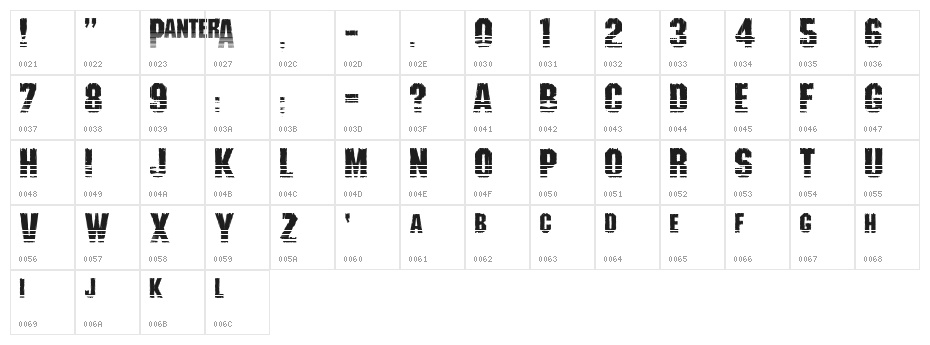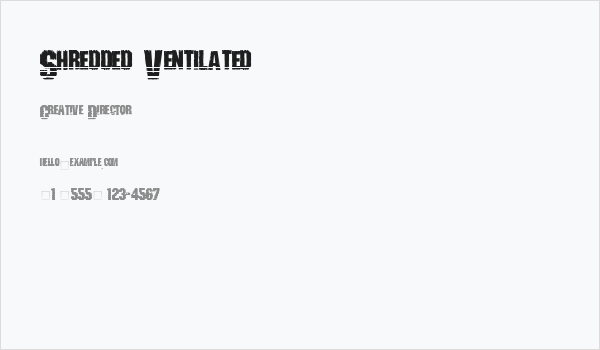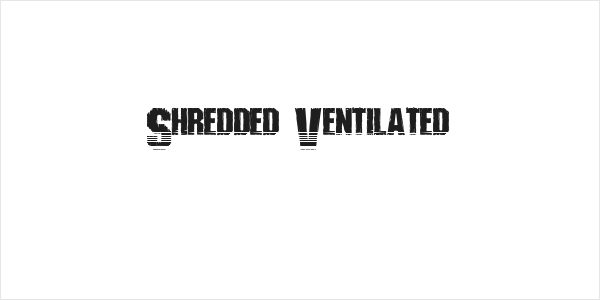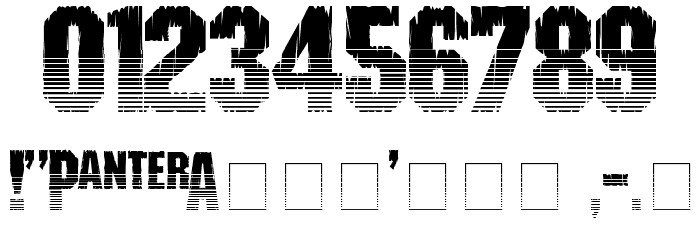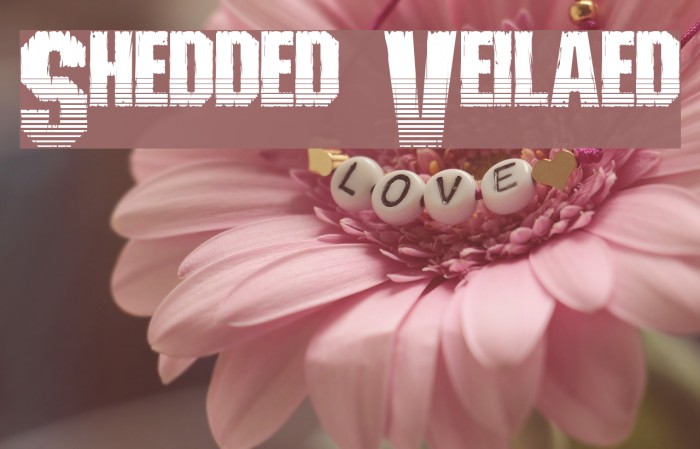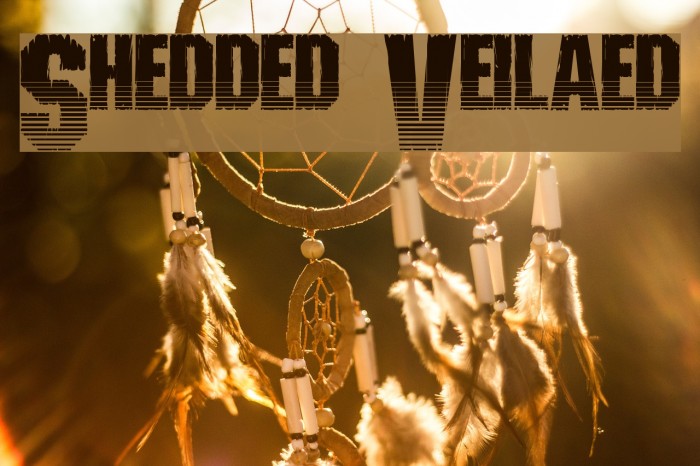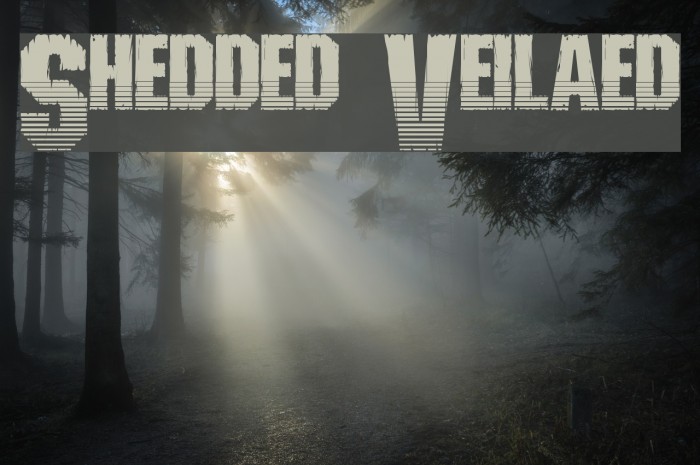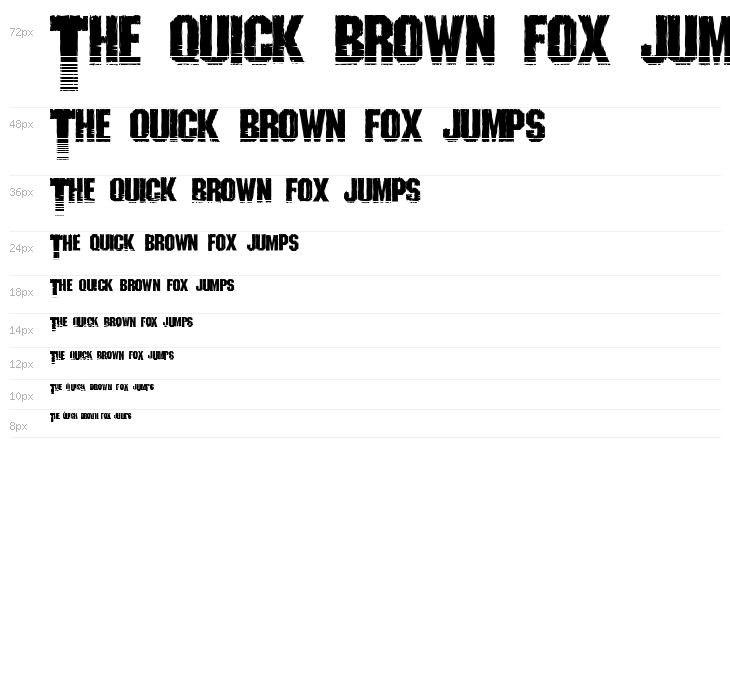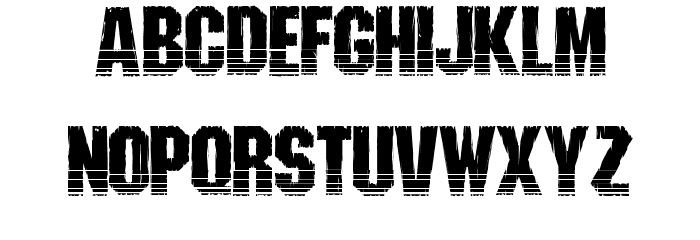
Shredded Ventilated Font
Shredded Ventilated Description
This font features a unique, shredded appearance with horizontal lines cutting through each character, creating a ventilated effect. The uppercase letters are bold and striking, with a modern, edgy style. The numbers follow the same pattern, maintaining consistency across the character set. This font is highly decorative, making it suitable for projects that require a bold statement. The shredded lines give it a sense of movement and dynamism, perfect for eye-catching designs.
| Proposed Projects | Ideal for music album covers, edgy posters, urban-themed branding, and dynamic event flyers. |